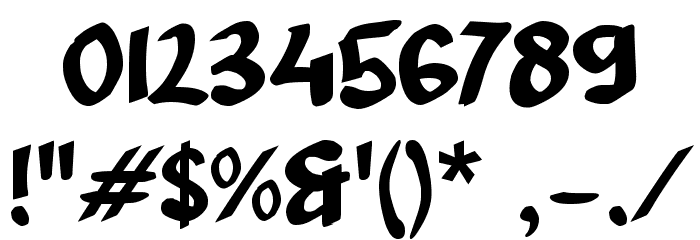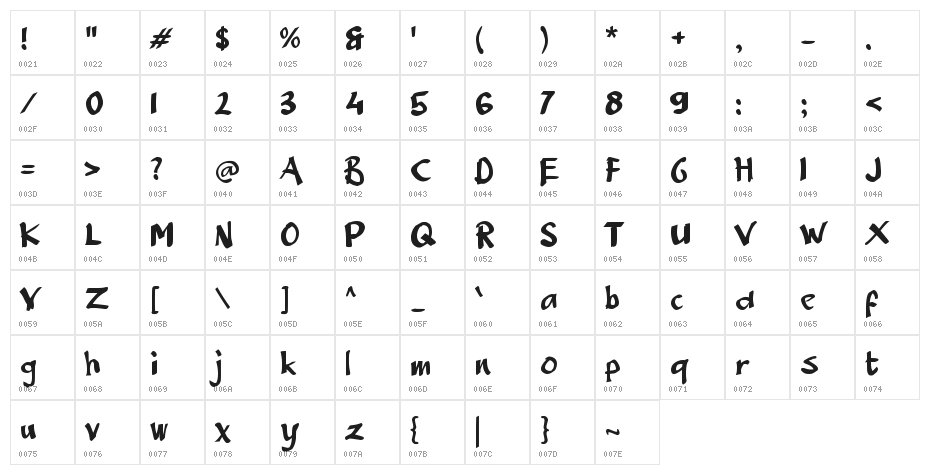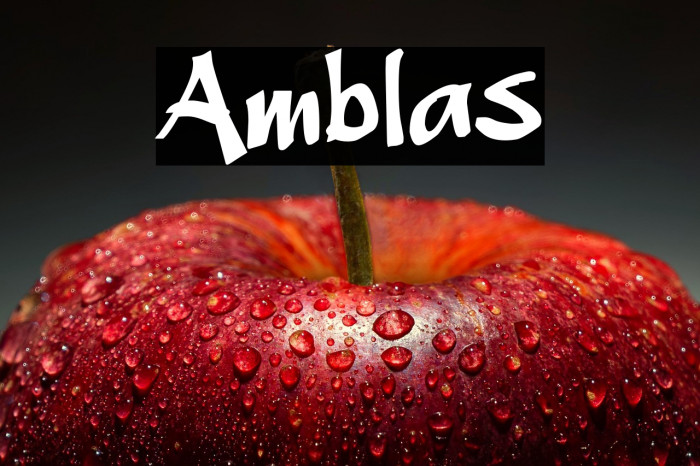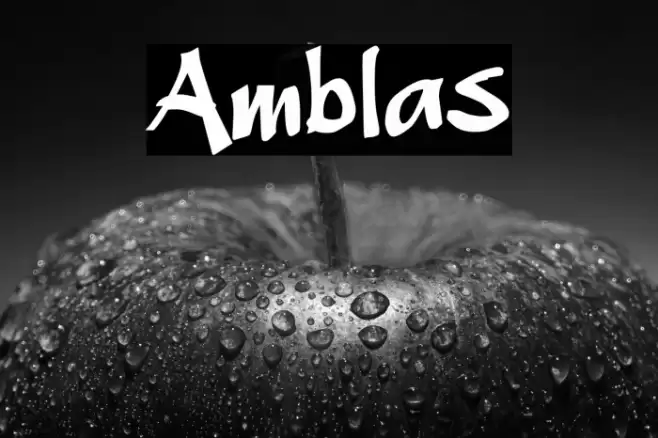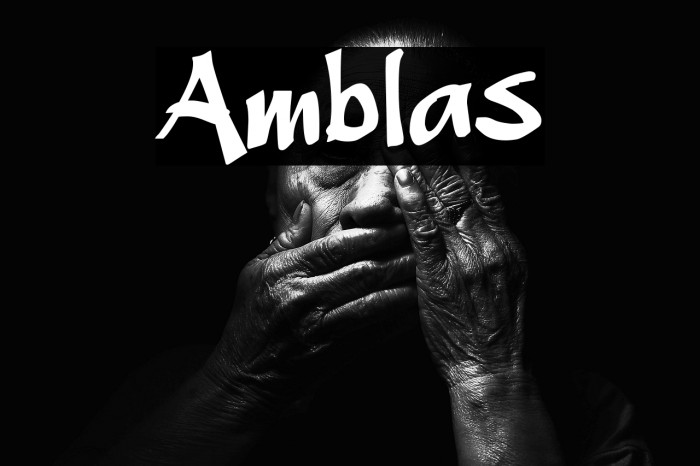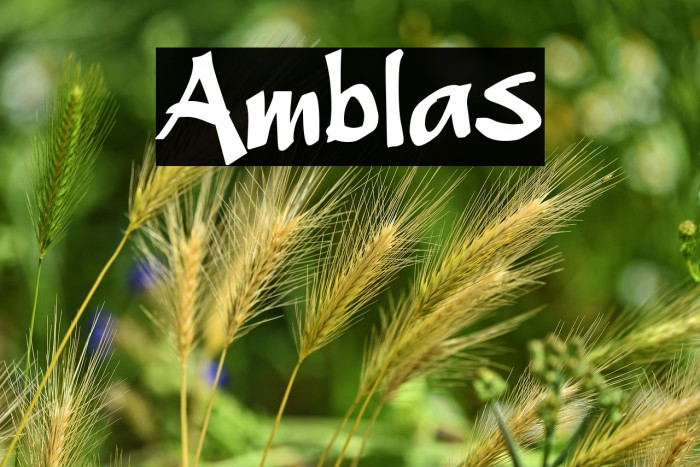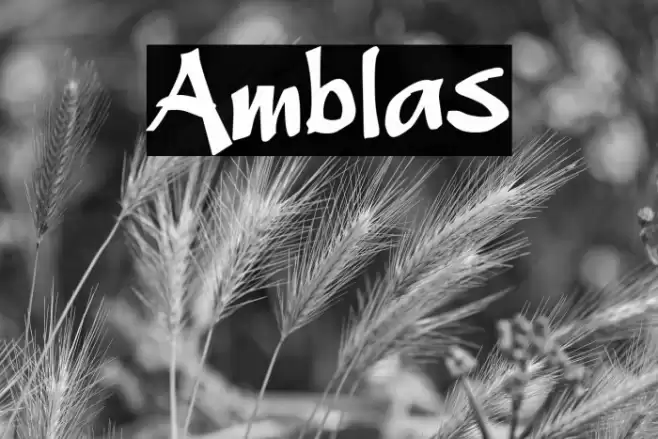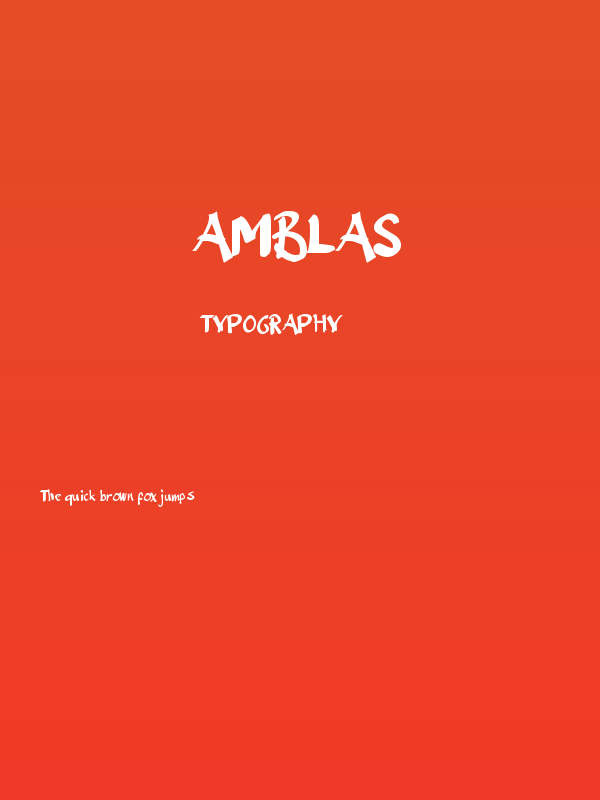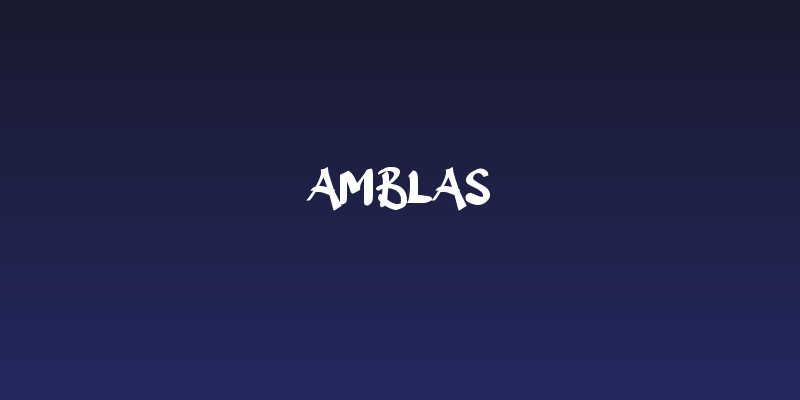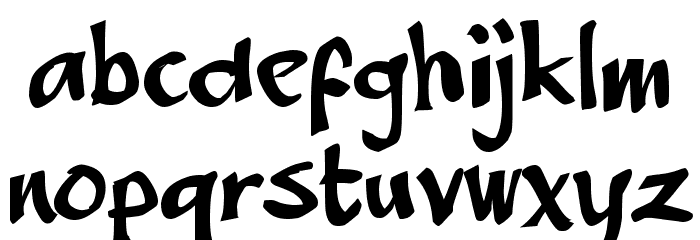
Amblas Font
Amblas Description
This font features a bold and expressive style with a hand-drawn appearance. The characters have a dynamic and energetic flow, characterized by thick strokes and irregular edges that give it a lively and artistic feel. The uppercase letters are robust and commanding, while the lowercase letters maintain a consistent style with a slightly more relaxed form. Numbers and special characters follow the same bold and playful design, making the font suitable for creative and informal applications. The overall impression is one of spontaneity and creativity, ideal for projects that require a personal touch.
| Proposed Projects | Ideal for posters, artistic projects, branding, and any design requiring a personal, creative touch. |